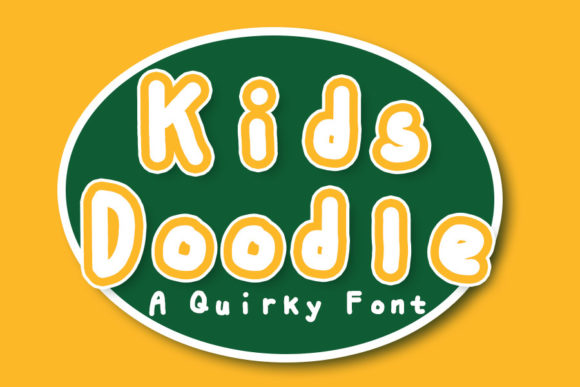
Journey into the realm of imagination and creativity with Kids Doodle Font, a whimsical display font that encapsulates the free-spirited nature of childhood. Its playful strokes and charming imperfections evoke the innocence and wonder of a child's imagination, making it the perfect choice for projects that aim to capture the essence of youth and fun.
Crafted with meticulous attention to detail, Kids Doodle Font boasts a diverse range of characters, each uniquely designed to mimic the natural flow and energy of a child's handwriting. From playful loops to energetic swirls, this font exudes a sense of movement and vibrancy, bringing life to your designs.
Whether you're creating eye-catching posters for children's events, designing whimsical invitations for birthday parties, or simply adding a touch of whimsy to your personal projects, Kids Doodle Font will effortlessly elevate your creations. Its versatility extends beyond the digital world, making it an excellent choice for handmade crafts, signage, and other physical applications.
Succumb to the allure of Kids Doodle Font, a font that will ignite your imagination and unlock a world of boundless creativity. With its captivating charm and endless possibilities, this font will transform your designs into masterpieces that resonate with the joy and wonder of childhood.